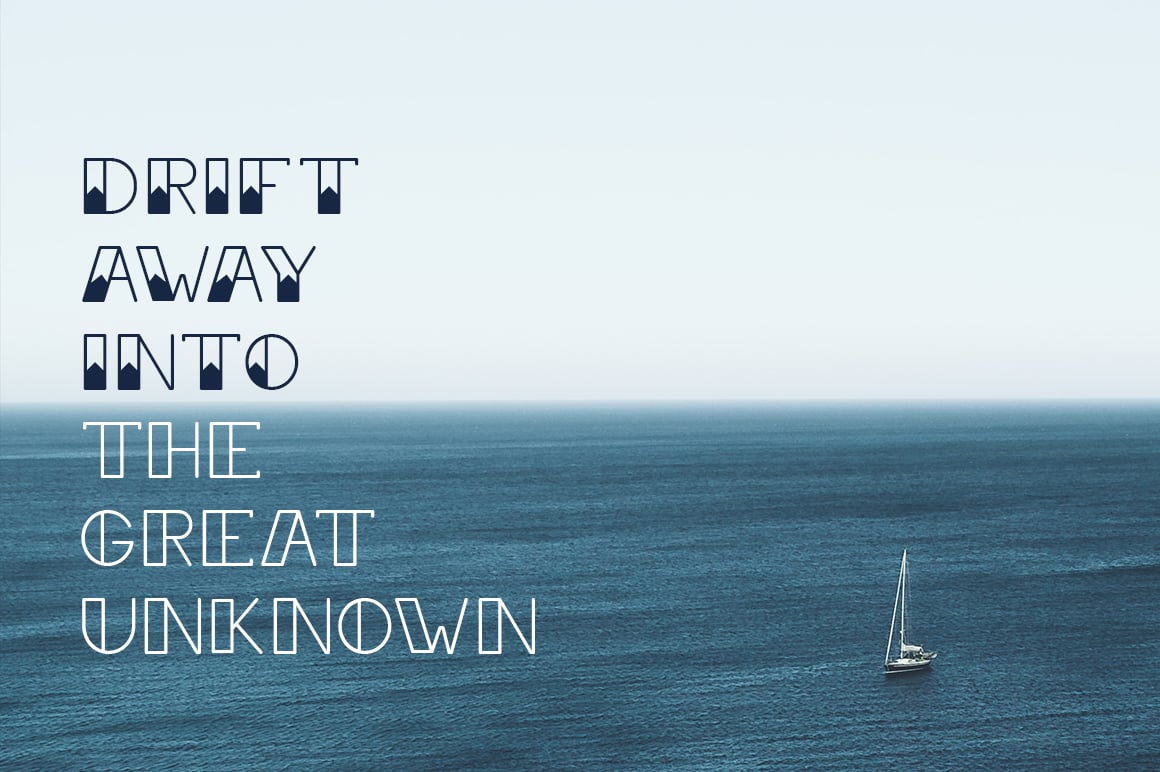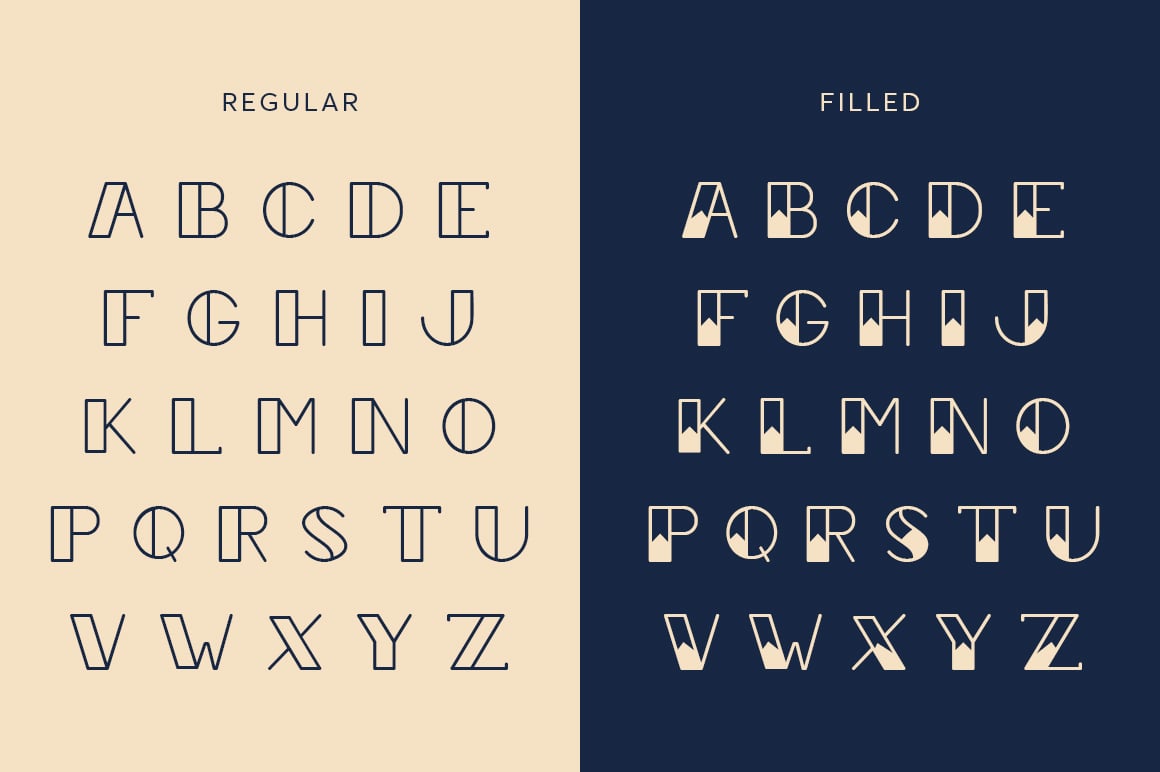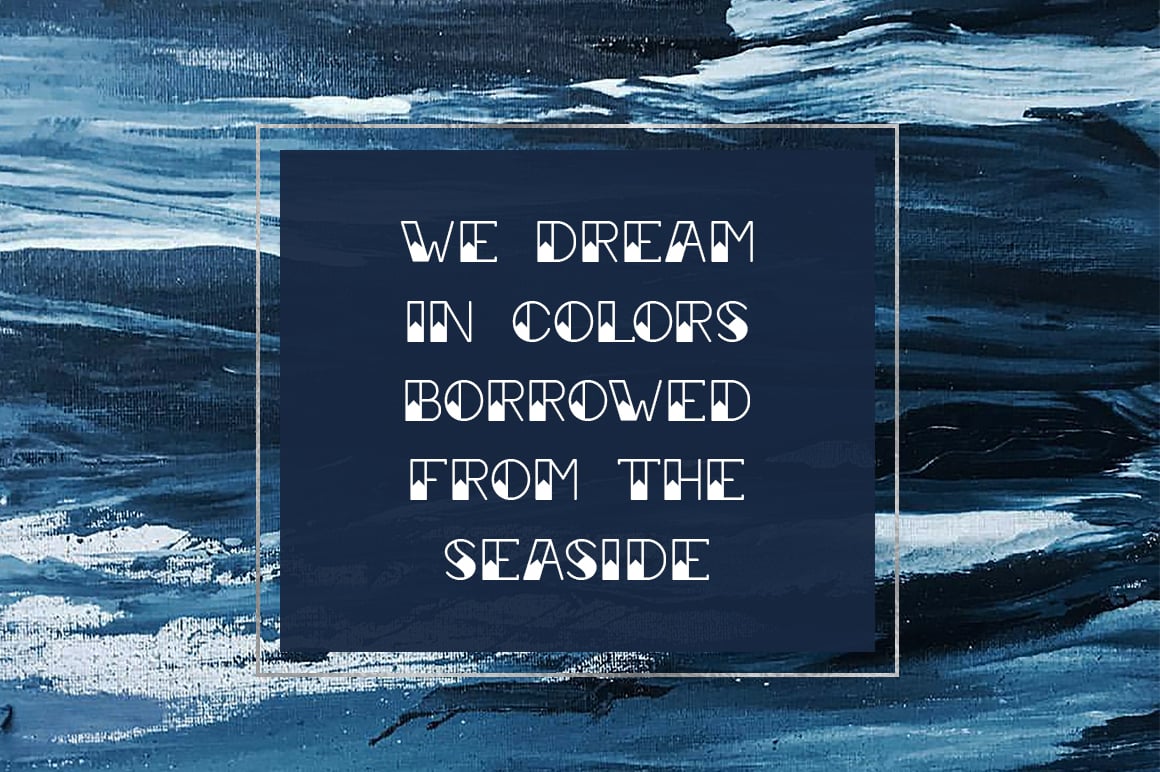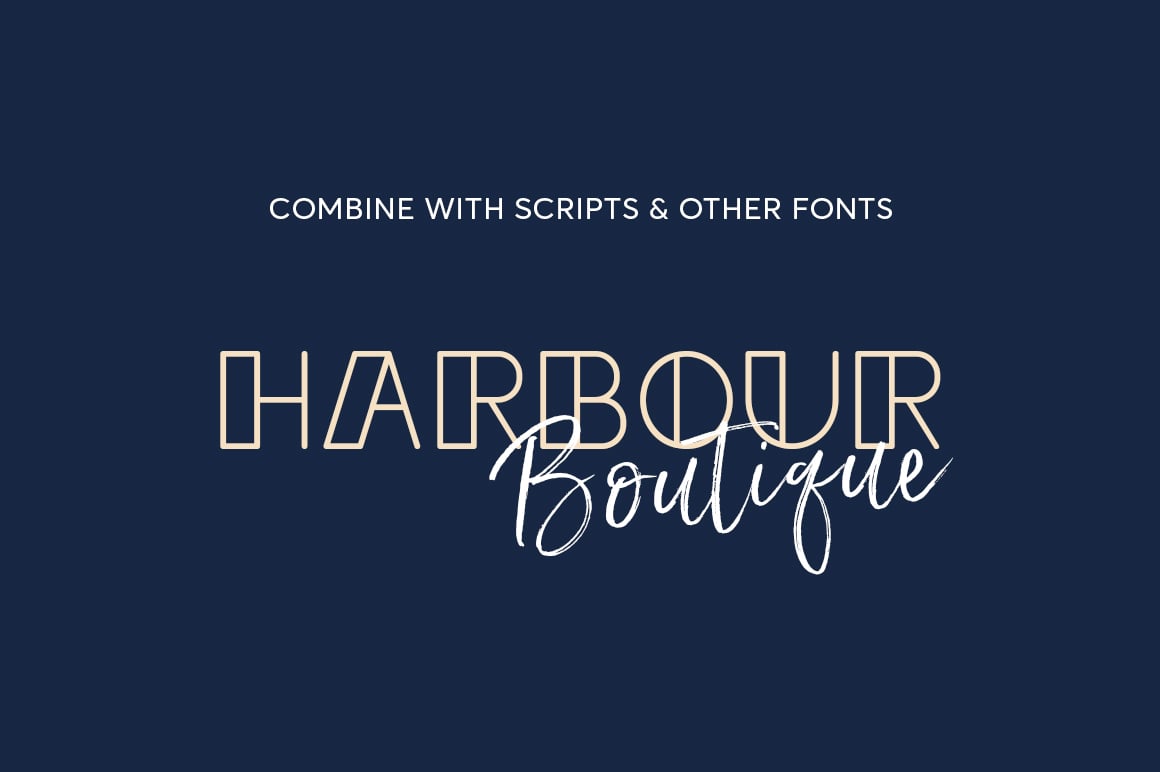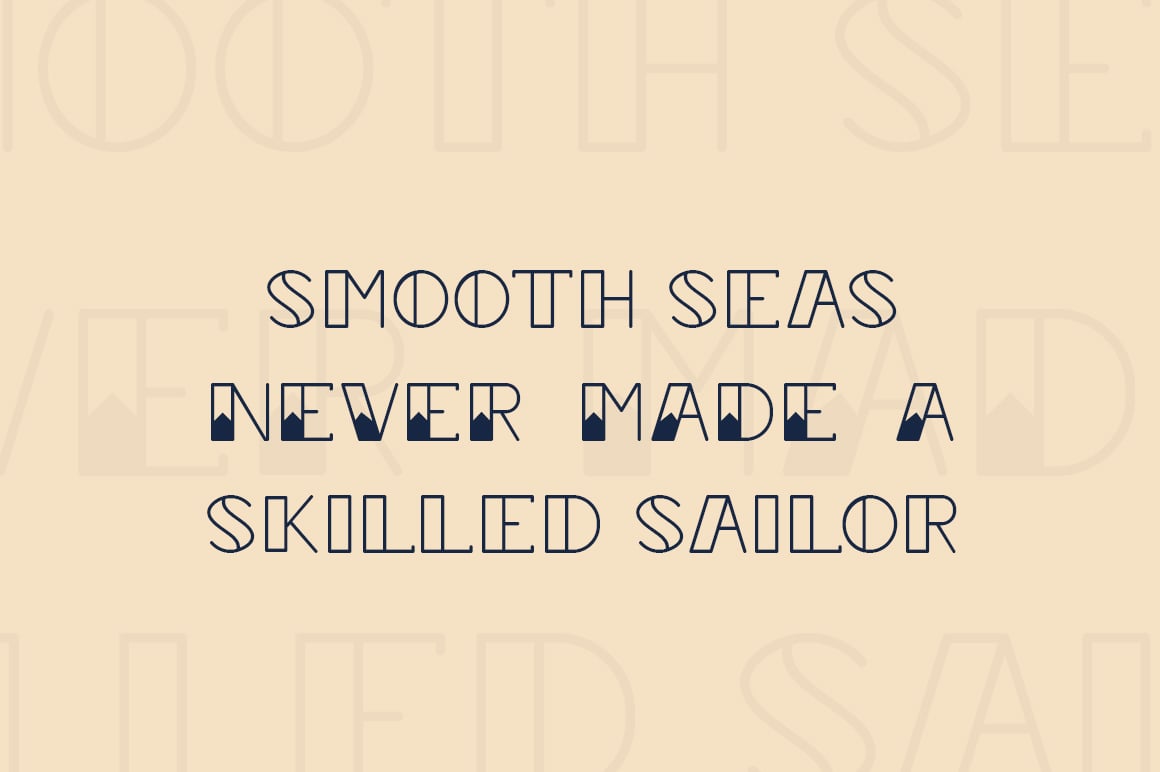
Sailor Girl Font Duo
Introducing The Sailor Girl Font Duo, including Sailor Girl Regular and Sailor Girl Filled. Two fonts created in a vintage nautical theme. Combine both fonts of use them individually, to create stunning designs. Grab your copy for only $9!